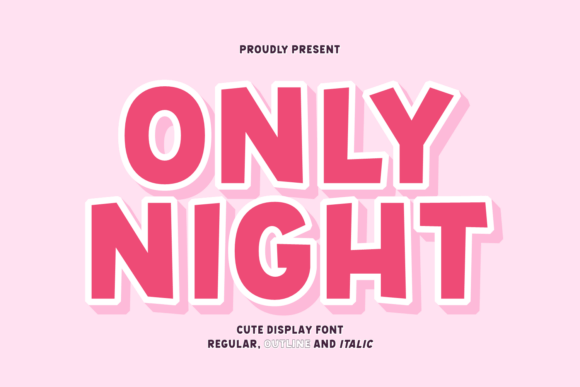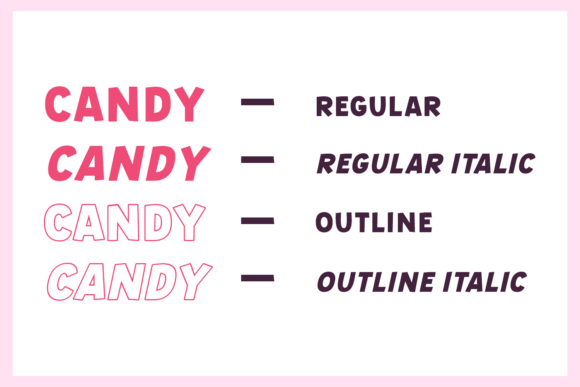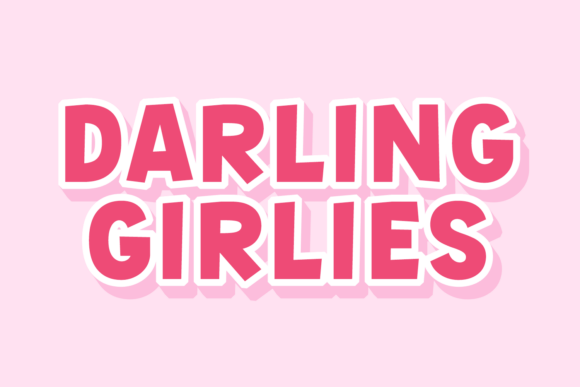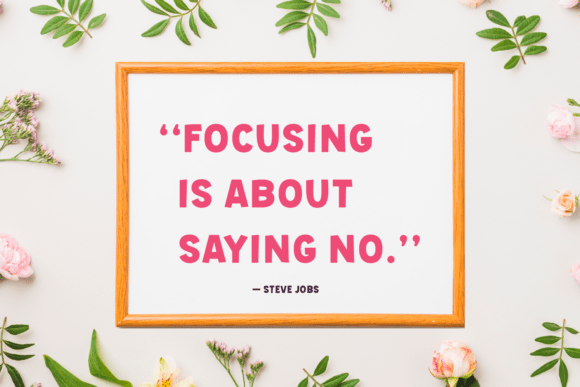
Only Night Font: A Cute Display Font for Cricut & Playful Designs
About the Only Night Font
Experience the unique personality of Only Night Font, a font designed for impact. Only Night is a versatile font and is suitable for children’s themed projects as well as cartoon branding. This font is attractive because it can be used as a logo or as a sans serif font. With a cute and cheerful feel, this font is ideal for posters, and sublimation projects.
Its playful, rounded forms make Only Night particularly effective for children’s book covers, logos for playful brands (e.g., toy companies, ice cream shops), and eye-catching posters. However, its low x-height and relatively large ascenders/descenders make it less suitable for body text or UI elements requiring high readability at smaller sizes. Avoid using it for long blocks of text.
Pairing Only Night with a clean sans-serif like Open Sans for body copy creates a balanced design. For a more sophisticated feel, consider pairing it with a delicate script font like Great Vibes for a playful yet elegant contrast. Alternatively, a geometric sans-serif such as Montserrat could provide a modern counterpoint to its rounded characters.
Only Night projects a friendly, approachable, and undeniably cheerful personality. It’s best suited to projects that require a fun and engaging aesthetic.
Only Night Font Example